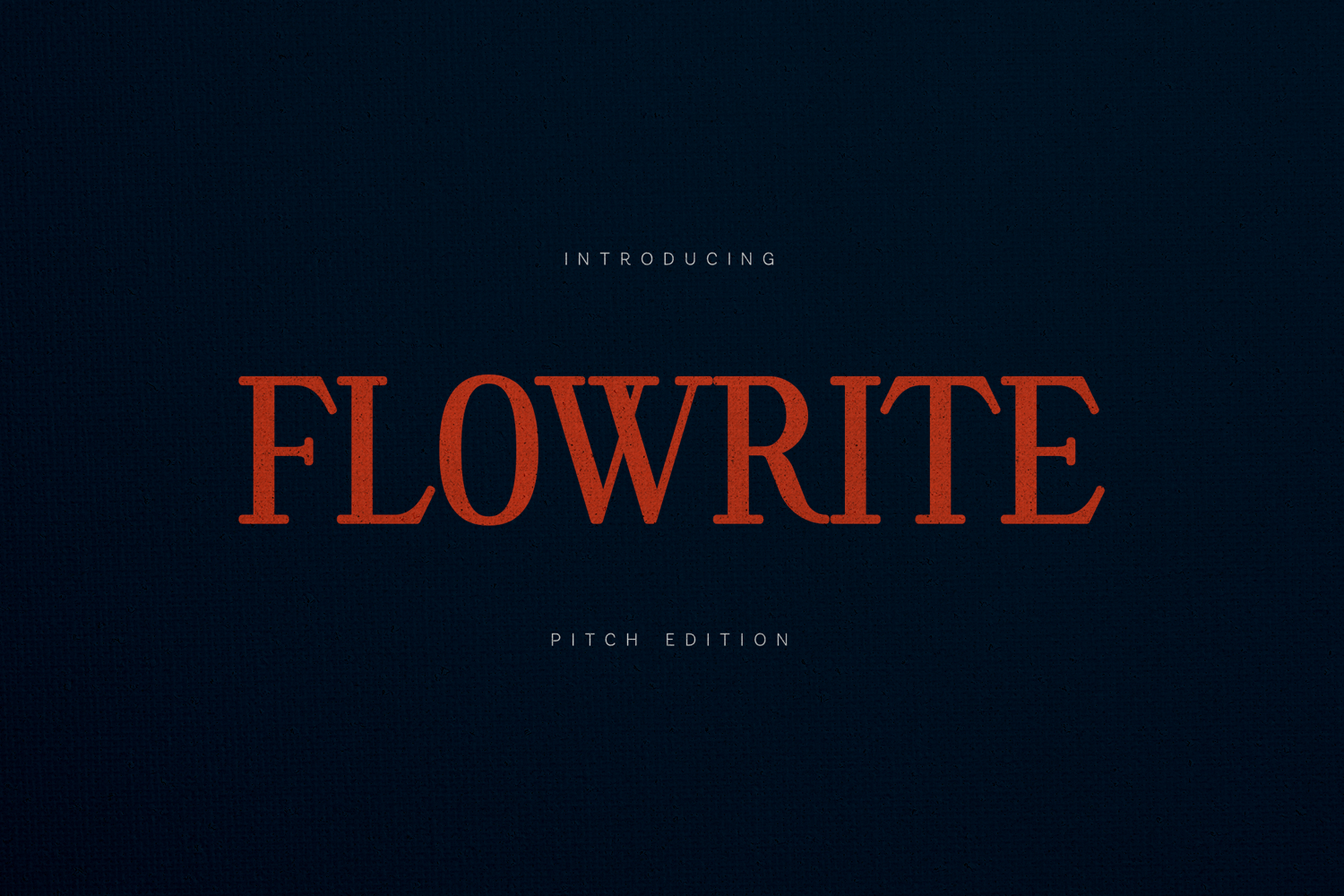
Flowrite Pitch Edition Modern Serif Font
Flowrite – Pitch Edition is a modern serif typeface designed with balanced proportions, elegant contrast, and refined letterforms. The font blends classical serif structure with a contemporary typographic aesthetic, creating a sophisticated typeface that works beautifully in modern design environments.
The character shapes feature clean serifs, smooth curves, and carefully crafted spacing, allowing the typography to feel both timeless and modern. The design maintains strong readability while offering a distinctive visual presence that elevates typographic compositions.
Flowrite is ideal for branding systems, logo design, editorial layouts, magazine typography, posters, packaging design, visual identity systems, social media graphics, and modern design projects that require refined serif typography.
The font includes uppercase letters, lowercase letters, numerals, punctuation, symbols, and extended multilingual support, making it suitable for international typography and a wide variety of design contexts.
Its elegant structure allows Flowrite to perform beautifully in headline typography, titles, and refined typographic layouts, offering flexibility for both expressive and structured compositions.
With its combination of modern refinement and classic serif structure, Flowrite – Pitch Edition provides a versatile typeface designed to enhance contemporary typography and sophisticated design projects.